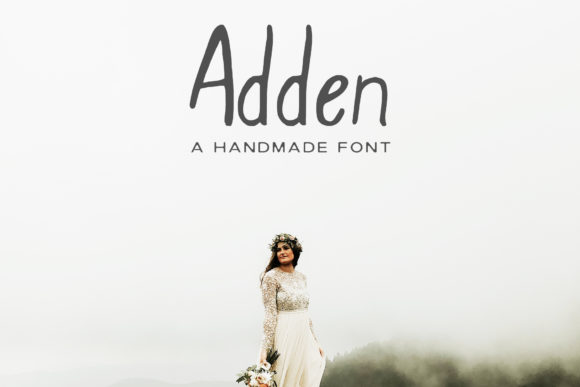
Introducing Adden Font - an enchanting symphony of flowing curves and effortless elegance. Prepare to be captivated by its mesmerizing dance of strokes that seamlessly blend the charm of handwriting with the precision of typography.
Journey into a world of limitless possibilities, where Adden Font transforms your designs into captivating masterpieces. Whether you're crafting intimate greeting cards, creating unforgettable branding materials, or designing stunning book covers, Adden Font effortlessly adds a touch of sophistication and allure.
With its captivating hand-crafted charm, Adden Font breathes life into wedding postcards, adding a touch of romance to your special day. Its delicate strokes weave a tale of love and commitment, capturing the essence of your vows in an unforgettable keepsake.
Step into the world of business with confidence, as Adden Font empowers your business cards with a distinctive and memorable identity. Its elegant lines and graceful curves leave a lasting impression, ensuring your brand stands out from the crowd.
Spark inspiration with Adden Font's captivating presence on posters and marketing materials. Its graceful dance across the page draws attention and captivates your audience, inspiring them to connect with your message on a deeper level.
Welcome to a world of endless creativity, where Adden Font becomes your ultimate creative companion. Its versatility extends to stationery, magazines, and more, adding a touch of elegance and sophistication to every project you undertake.
Embrace the allure of Adden Font today, and watch as your designs blossom into breathtaking works of art. Its captivating curves and graceful strokes will ignite your imagination, leaving a lasting impression on all who encounter your creations.